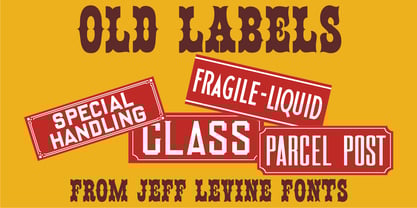
Old Labels JNL Font
Old Labels JNL was inspired by the red and white gummed labels that were used for shipping parcels long before self-adhesive materials and desktop publishing rendered the older labels obsolete. The fifty-two glyphs include a generous supply of phrases such as ‘Air Mail’, ‘Do Not Bend’, ‘Rush’, etc. along with a number of blank label backgrounds and decorative frames. NOTE: Commercial replication of the images within this font for any resale purposes (including, but not limited to labels, t-shirts, stock designs, et al) requires a separate license which may be obtained by contacting the designer via the email address found within the End User License Agreement.